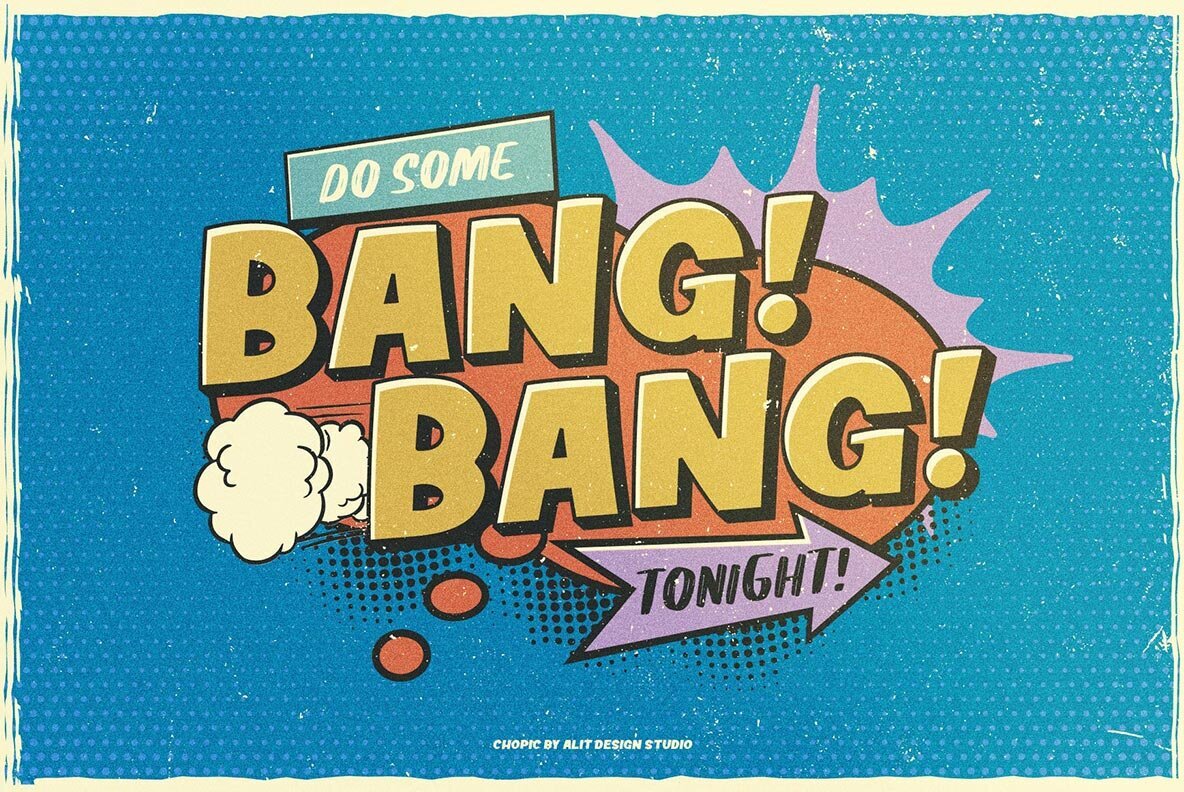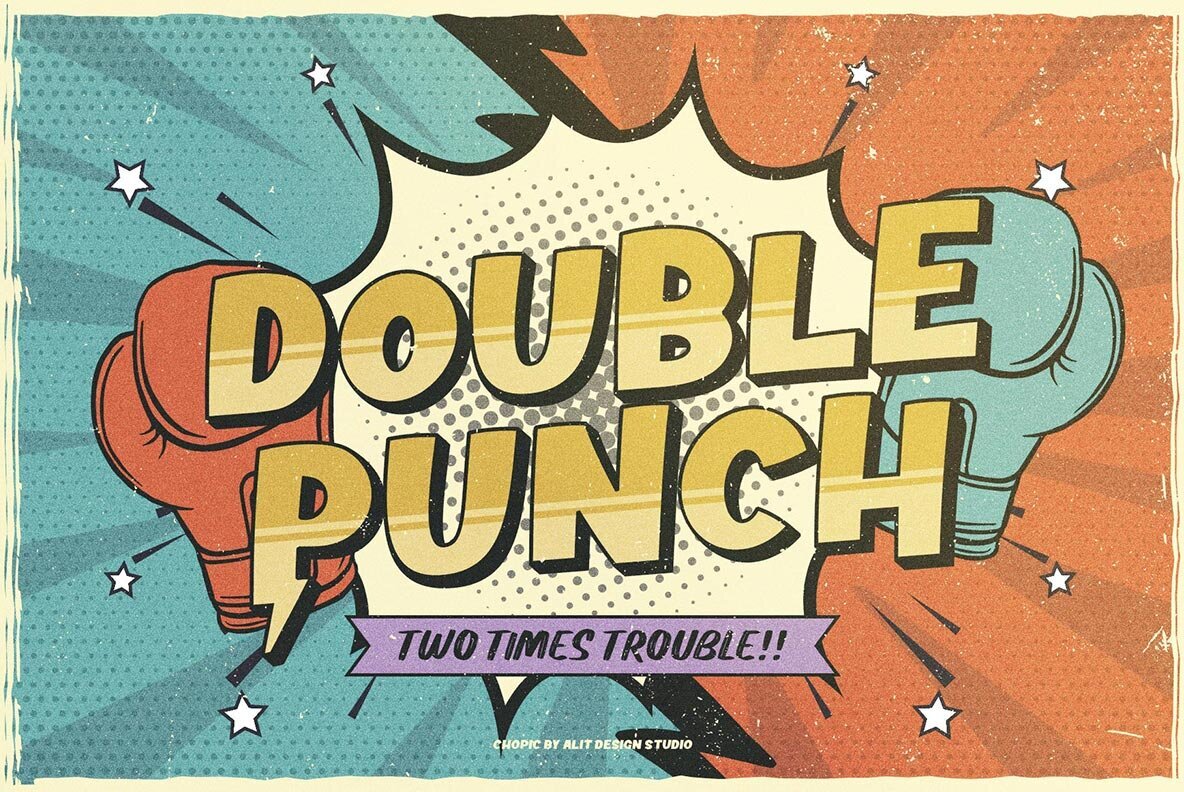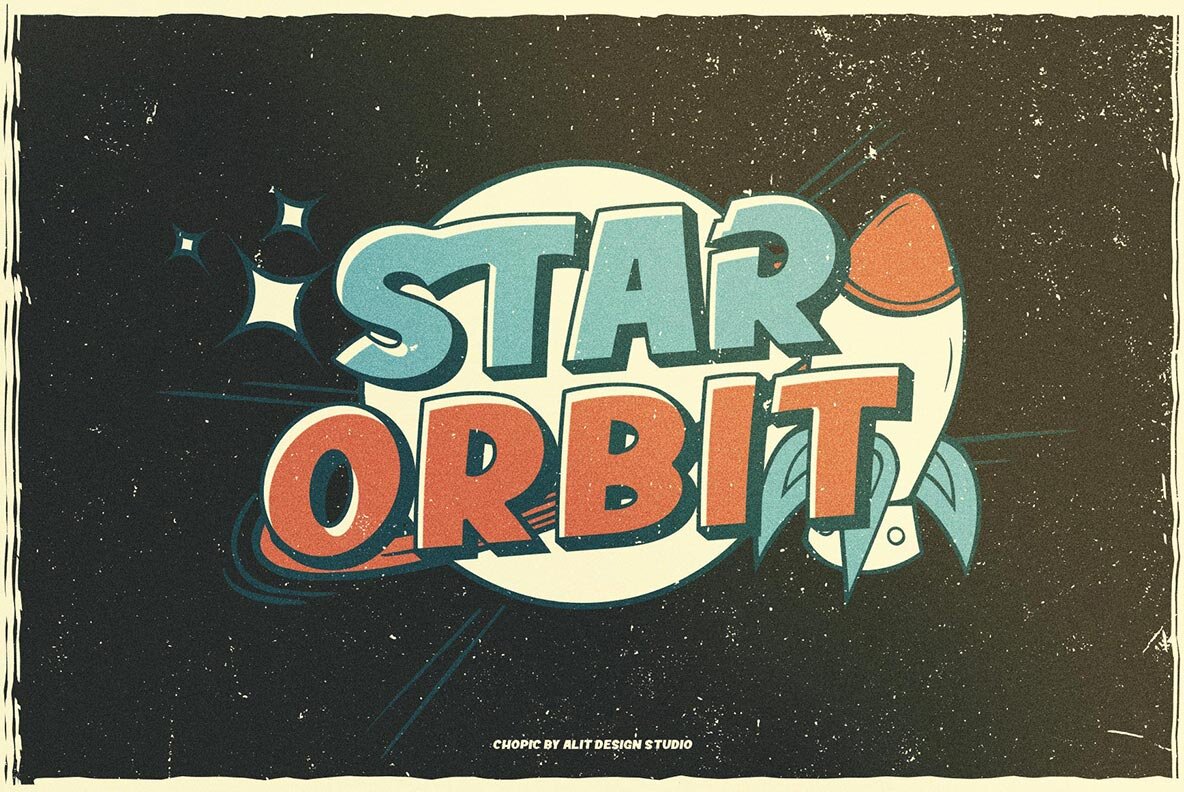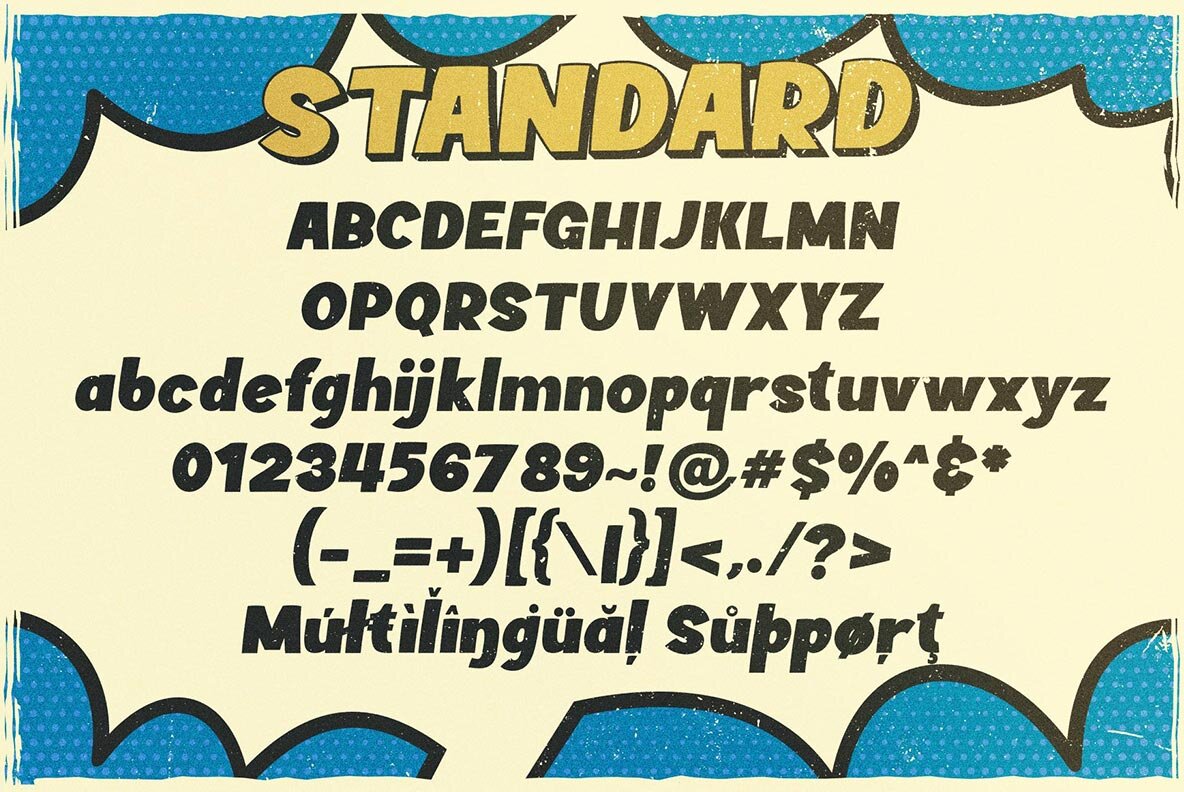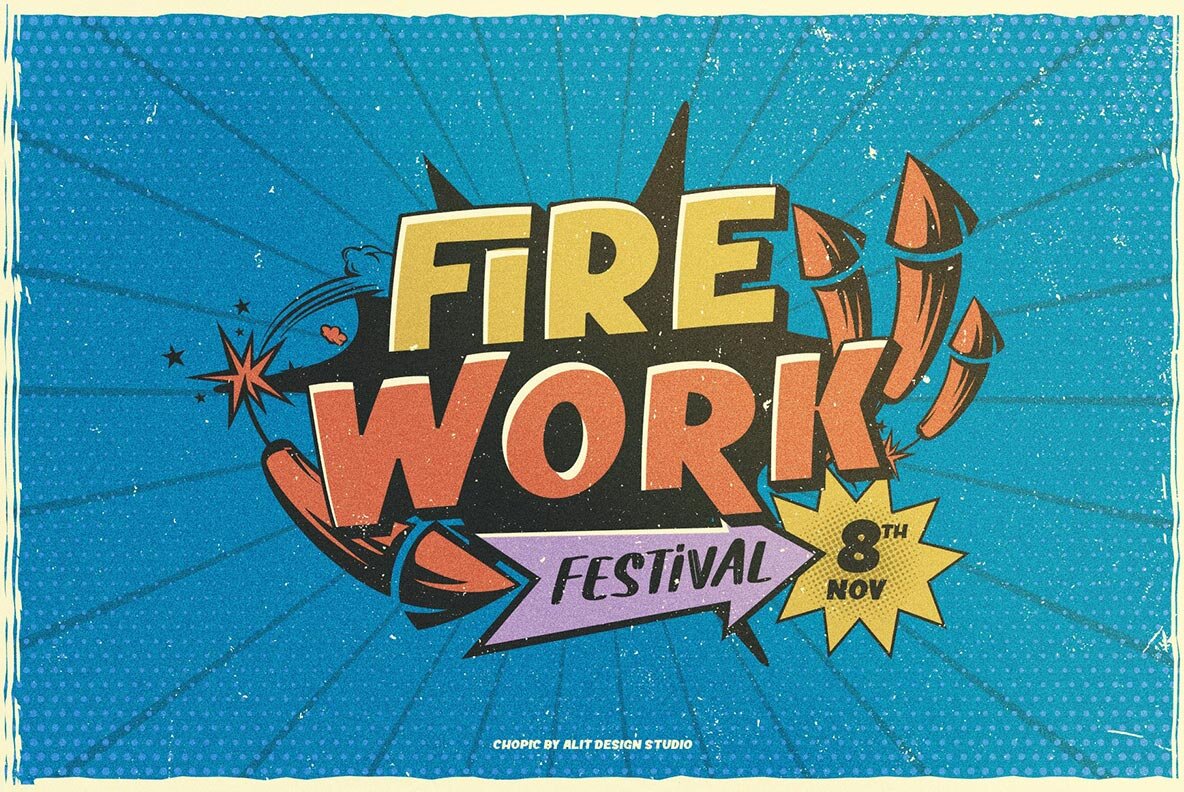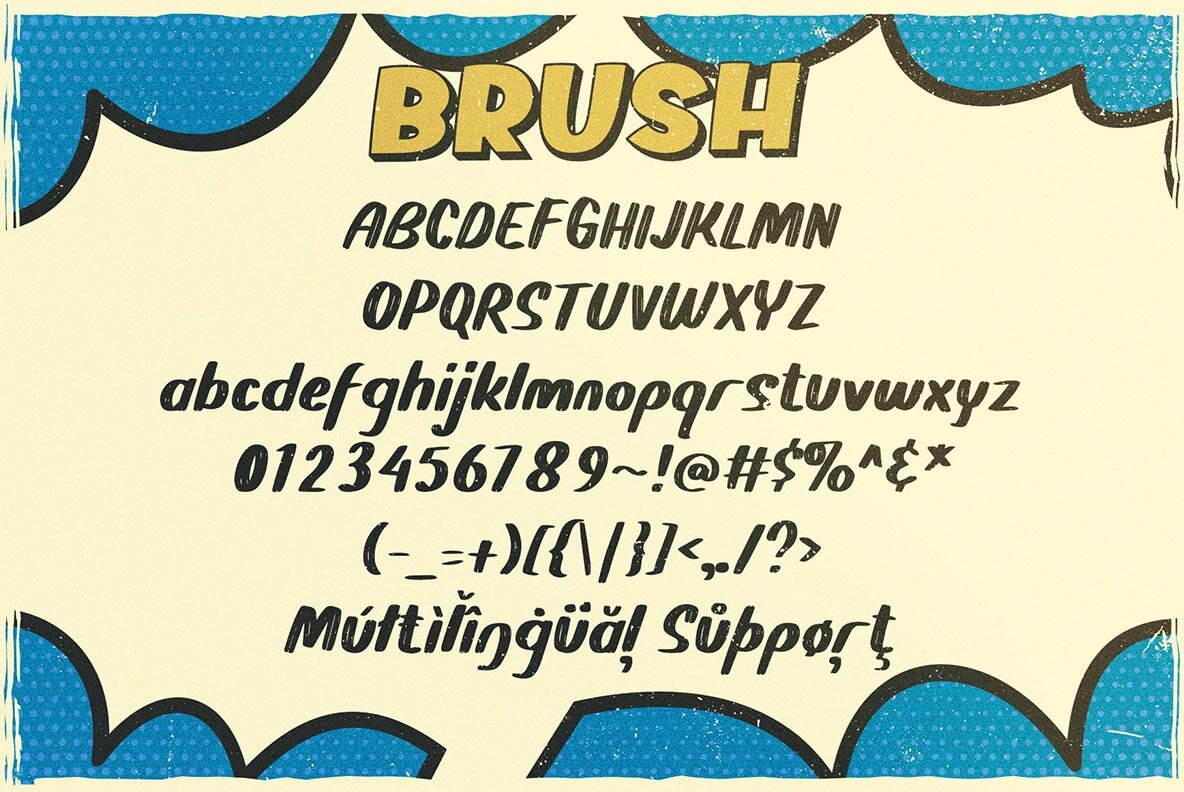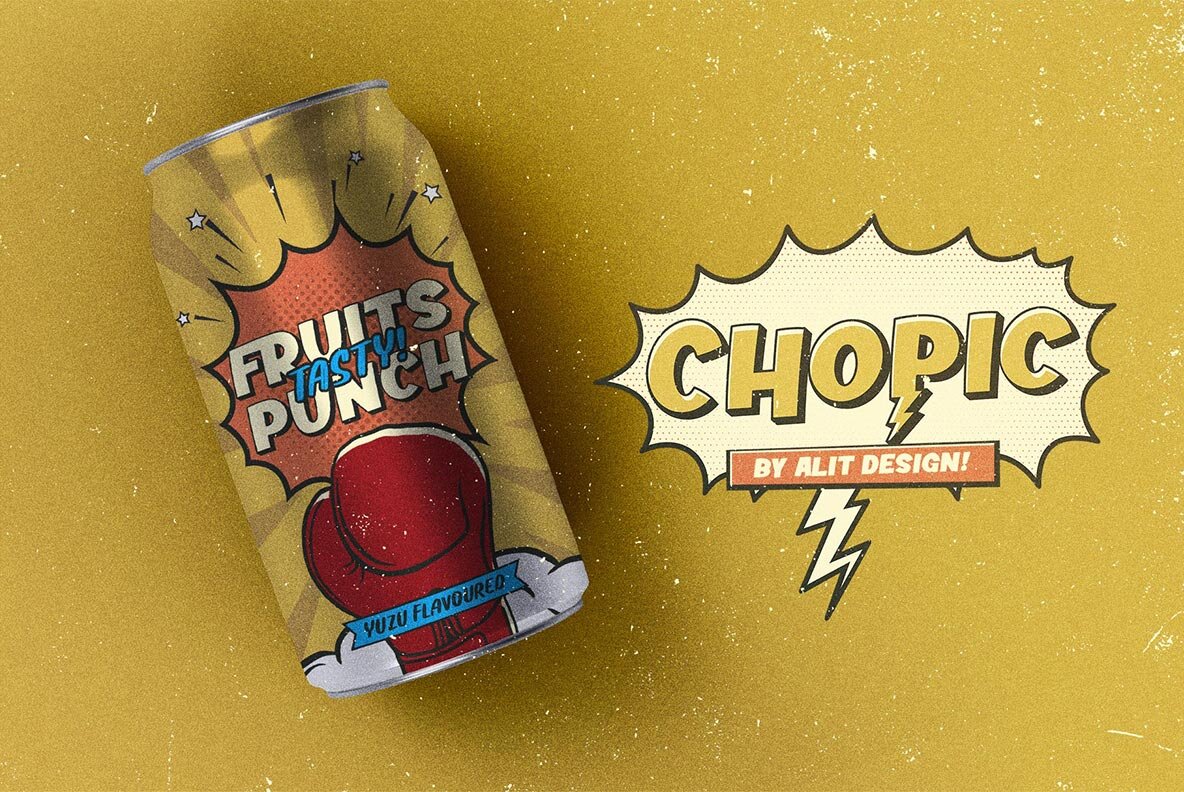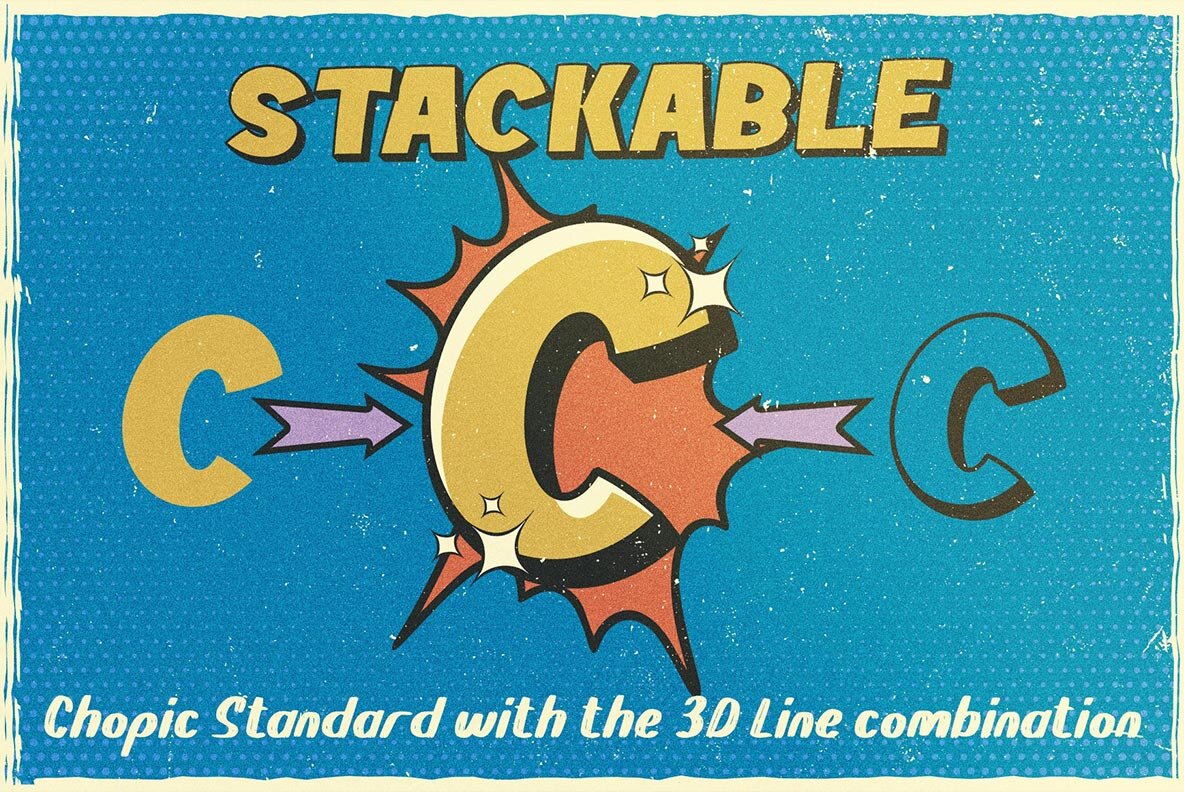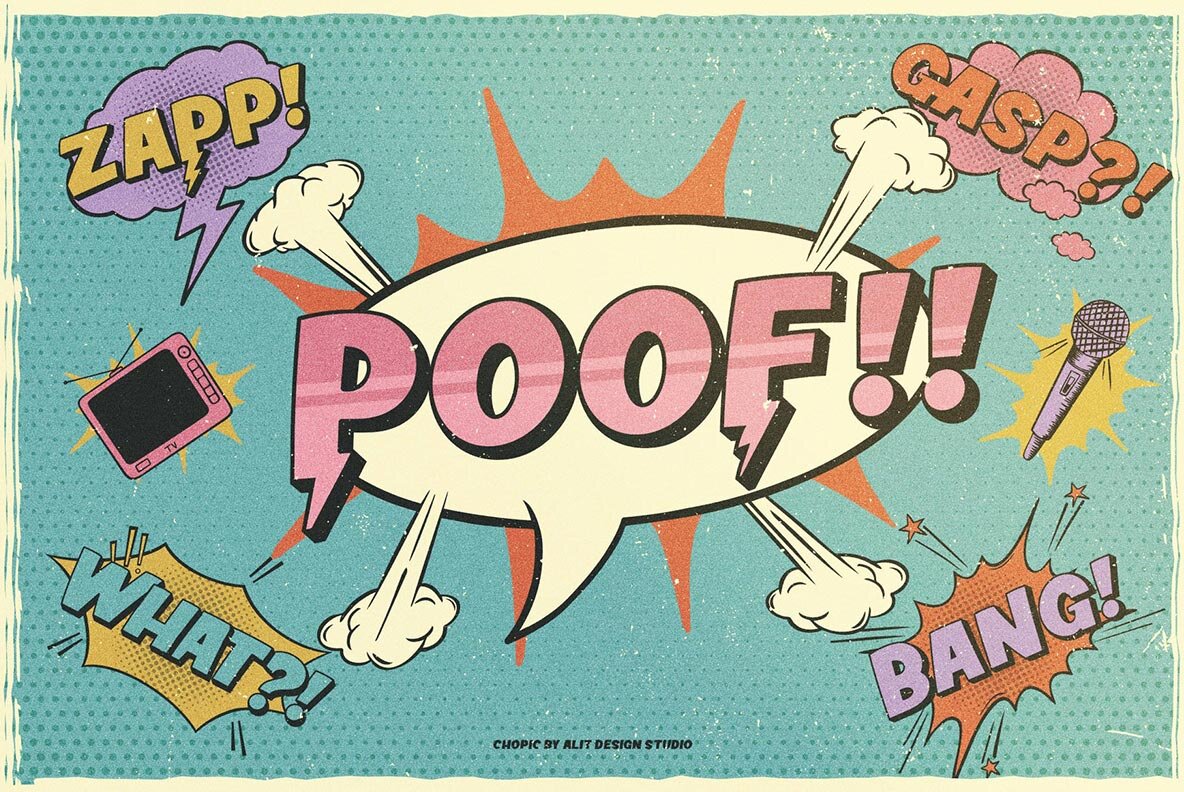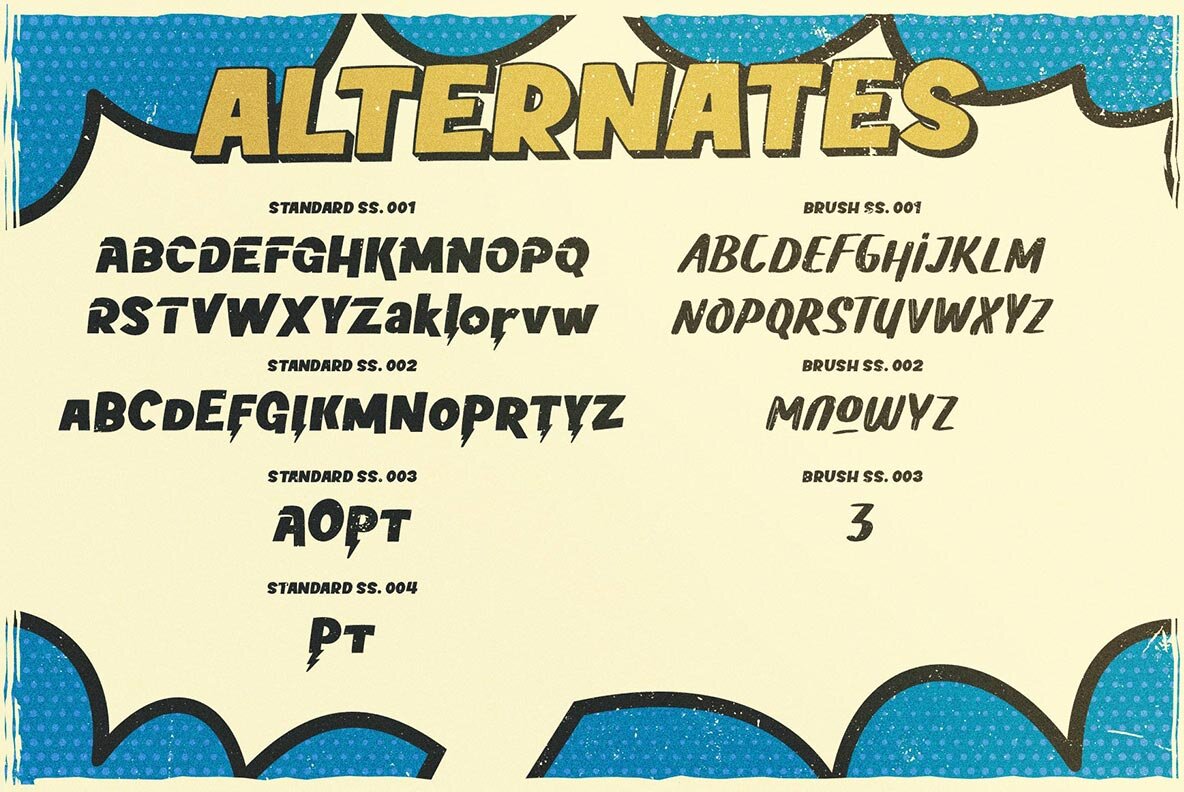
Chopic Font
Chopic 3D Regular
Chopic Brush Regular
Chopic Stndr Regular
Dive into a world of whimsy and vibrant creativity with the CHOPIC Comic Typeface. Drawing inspiration from classic comic book letterforms, this typeface is a sans serif display font that exudes a carefree and joyful aesthetic, perfect for retro pop art designs. It includes two distinct styles—regular and brushed—along with solid and 3D character variations, making it an ideal choice for playful, non-serious concepts such as designs for children, comic text, and book headers. The CHOPIC Comic Typeface enriches your design toolkit with its generous offer of comic-themed illustrations, simplifying the creation of dynamic and engaging visuals. Whether it's magazine covers, brochures, flyers, or standout social media content, this typeface delivers a playful essence that aligns perfectly with pop art and casual design themes.CHOPIC Comic Typeface: A Playful Retro Pop Art Font